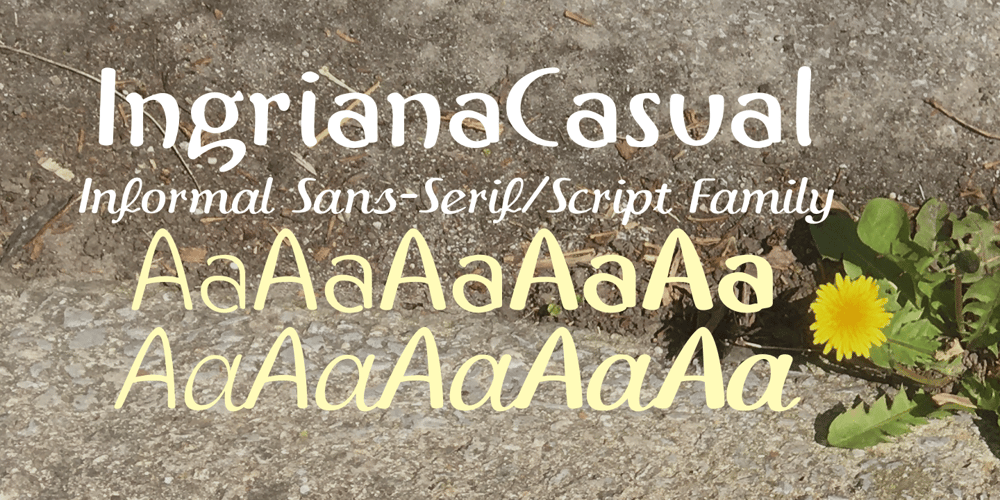
IngrianaCasual Font Family was designed by Robert Schenk and published by Ingrimayne Type. IngrianaCasual contains 10 styles and family package options. IngrianaCasual features a hand-drawn sans-serif family with an italics that has semi-script lower-case letters. The five upright weights are relaxed and informal and the five italics styles are decorative and elegant. The family is very legible and can be be used for many purposes including brochures and advertising, though probably not for book text.